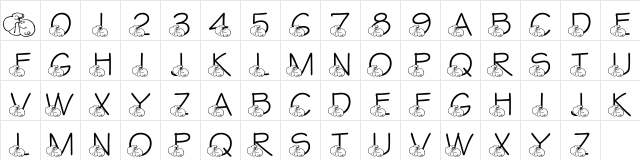
LMS Baby Sophie Regular Font Preview
LMS Baby Sophie Regular
Design Context for LMS Baby Sophie Typeface
LMS Baby Sophie is a composed and adaptable typeface that performs quietly and consistently across a wide range of design contexts.